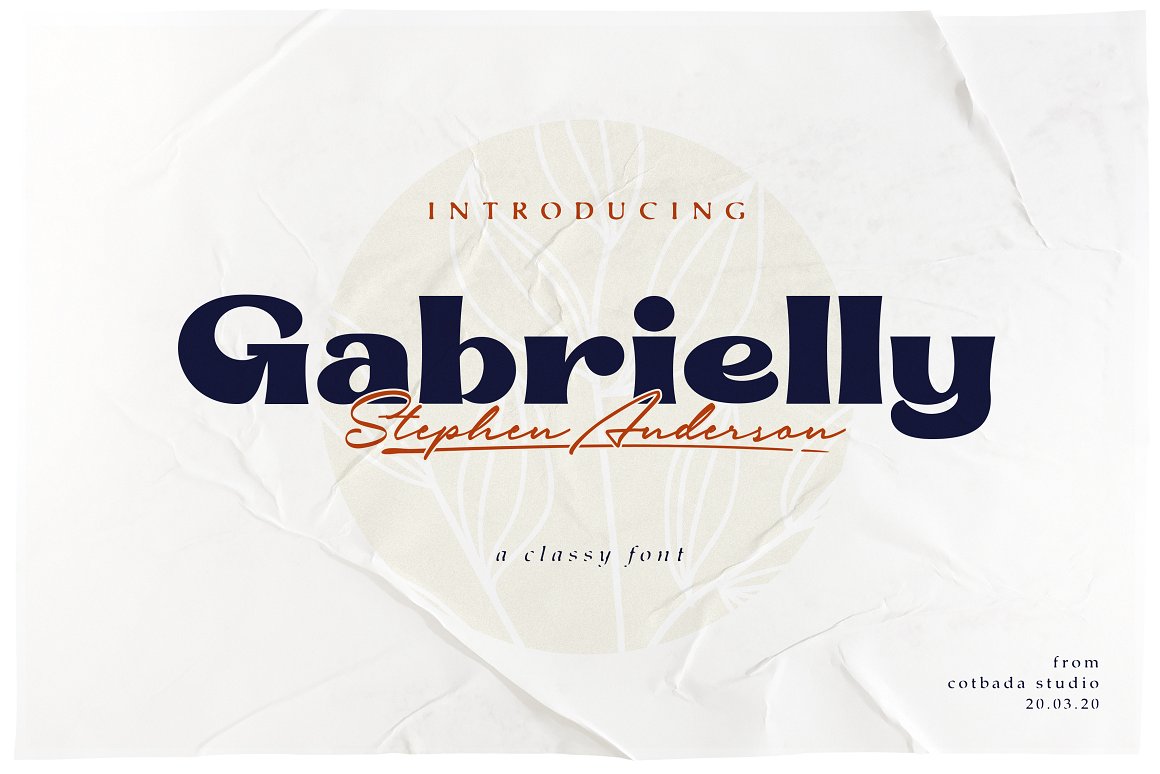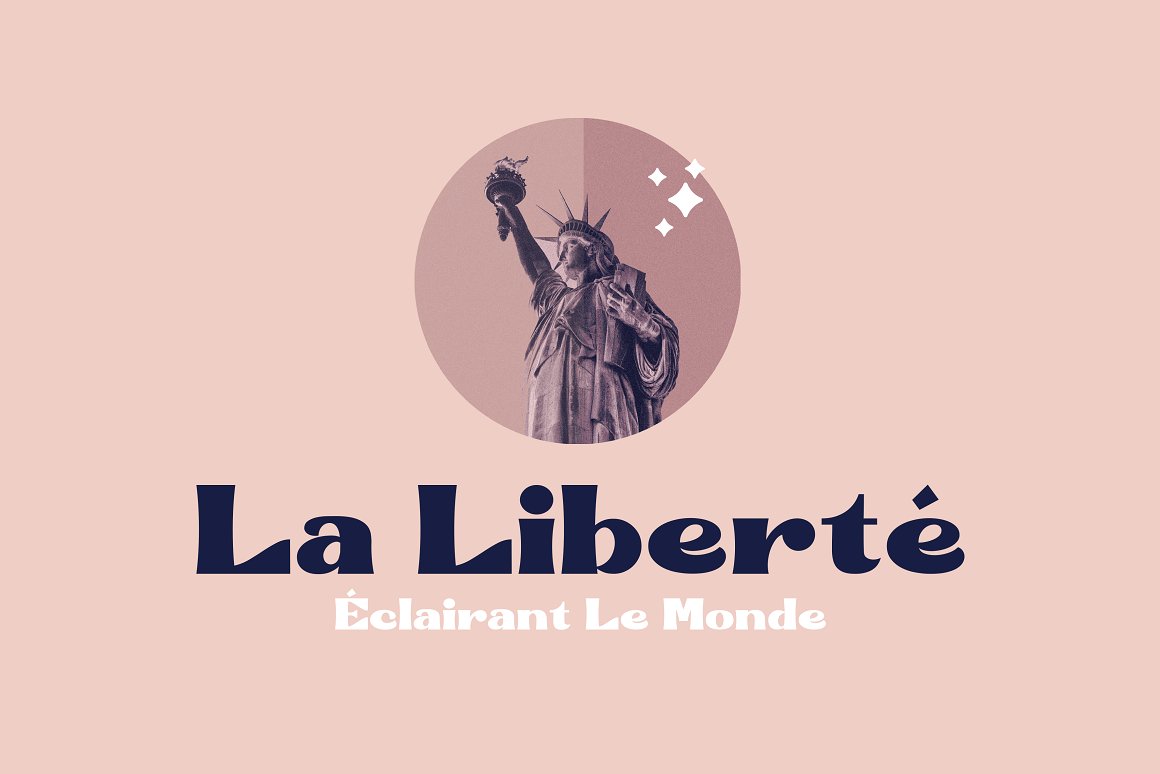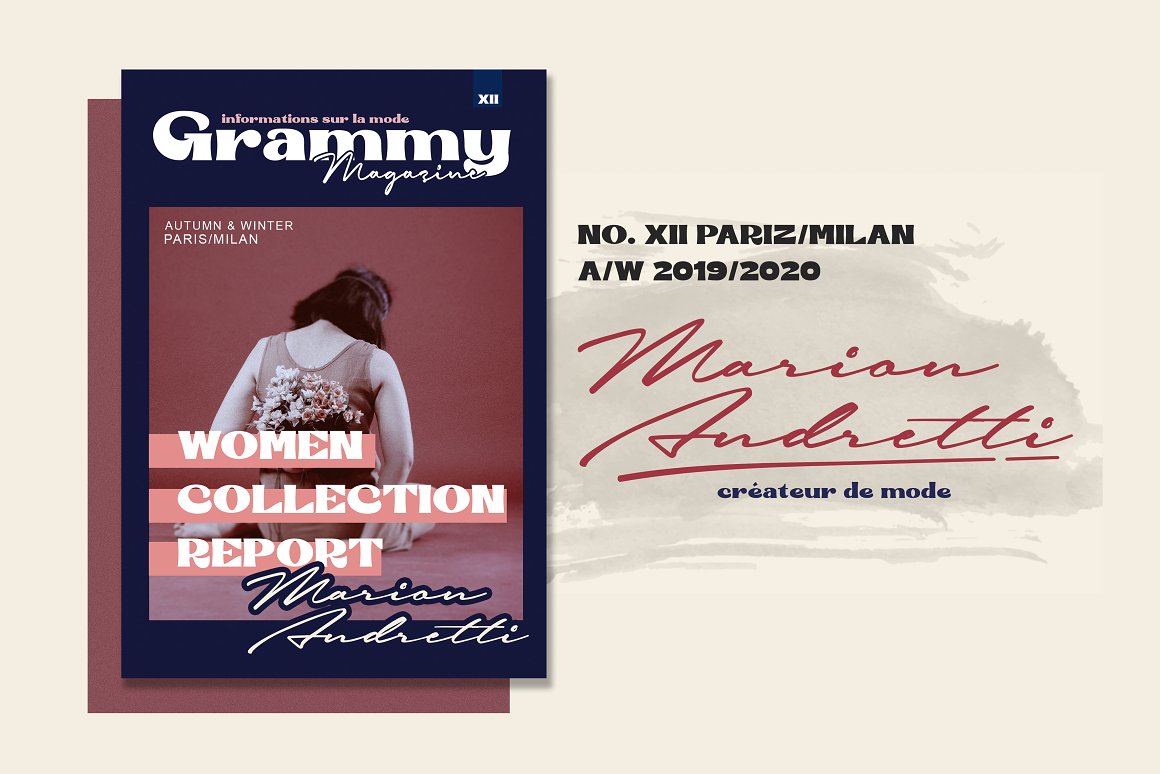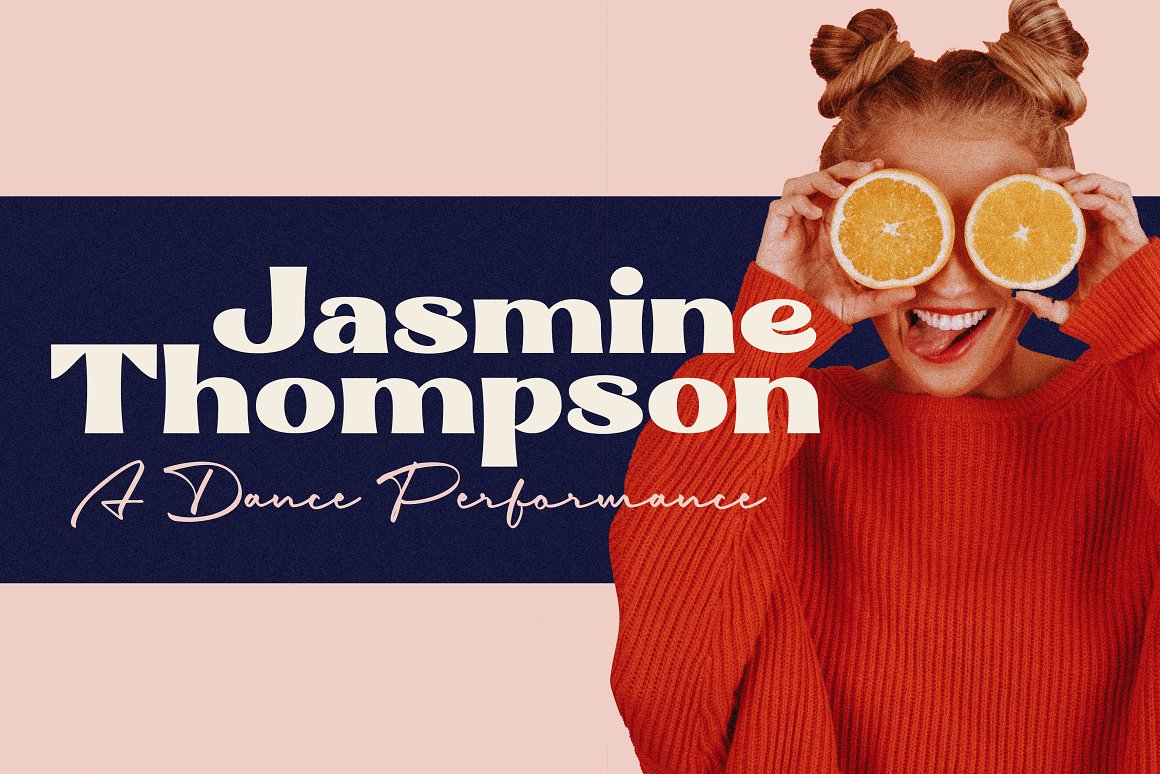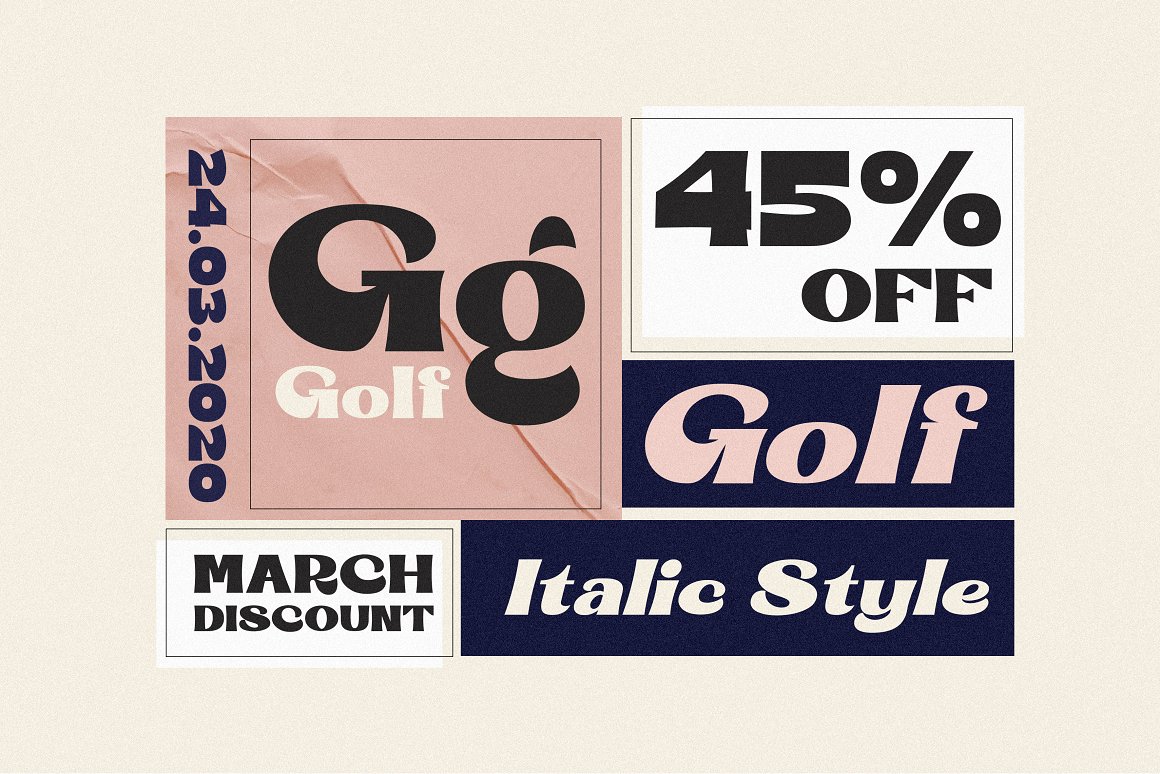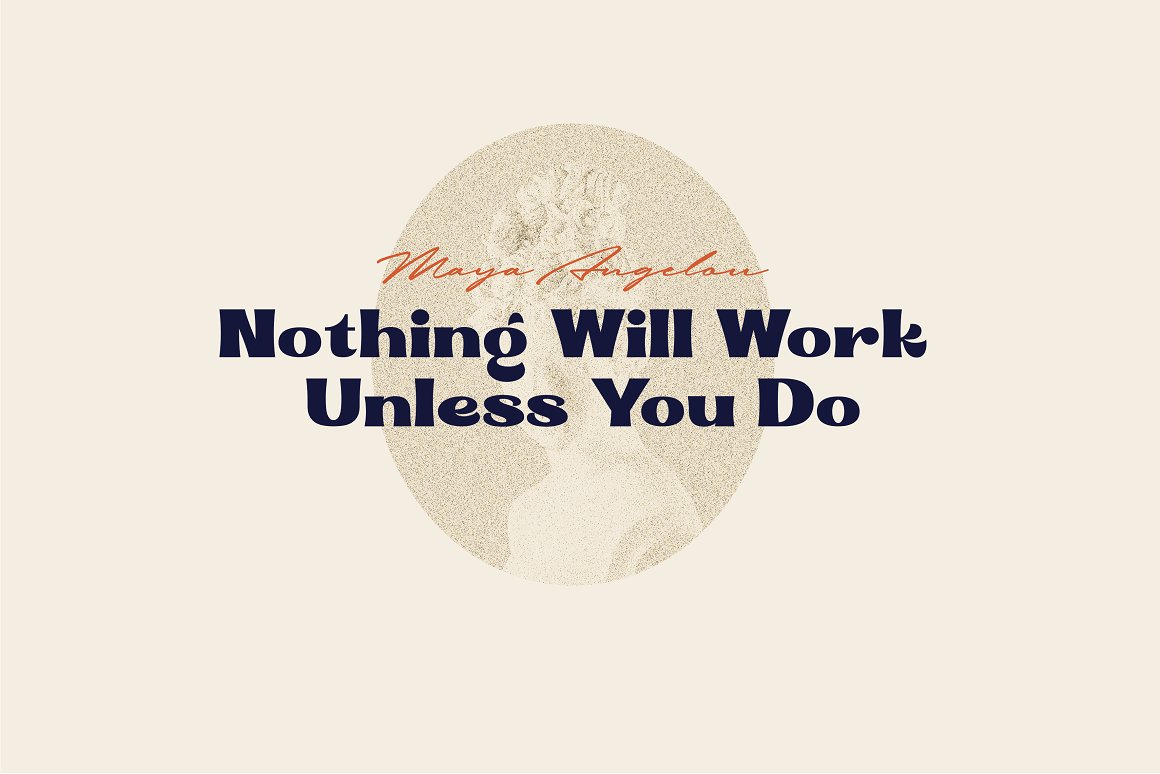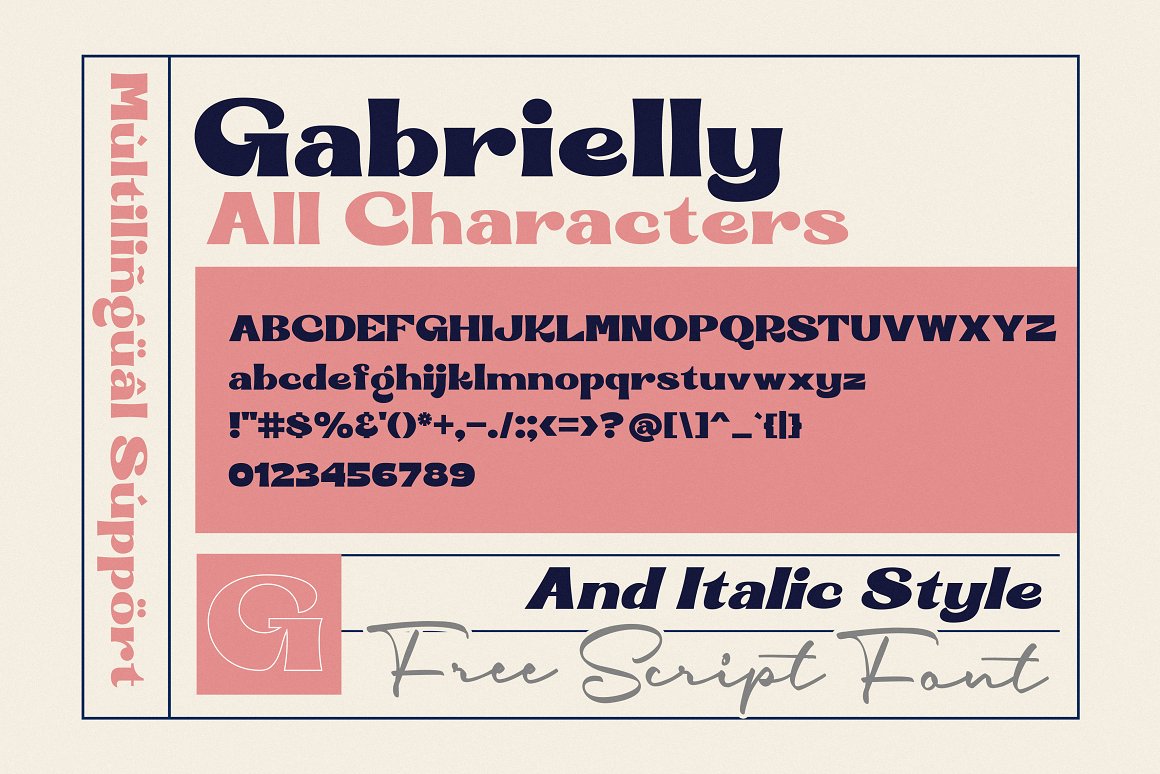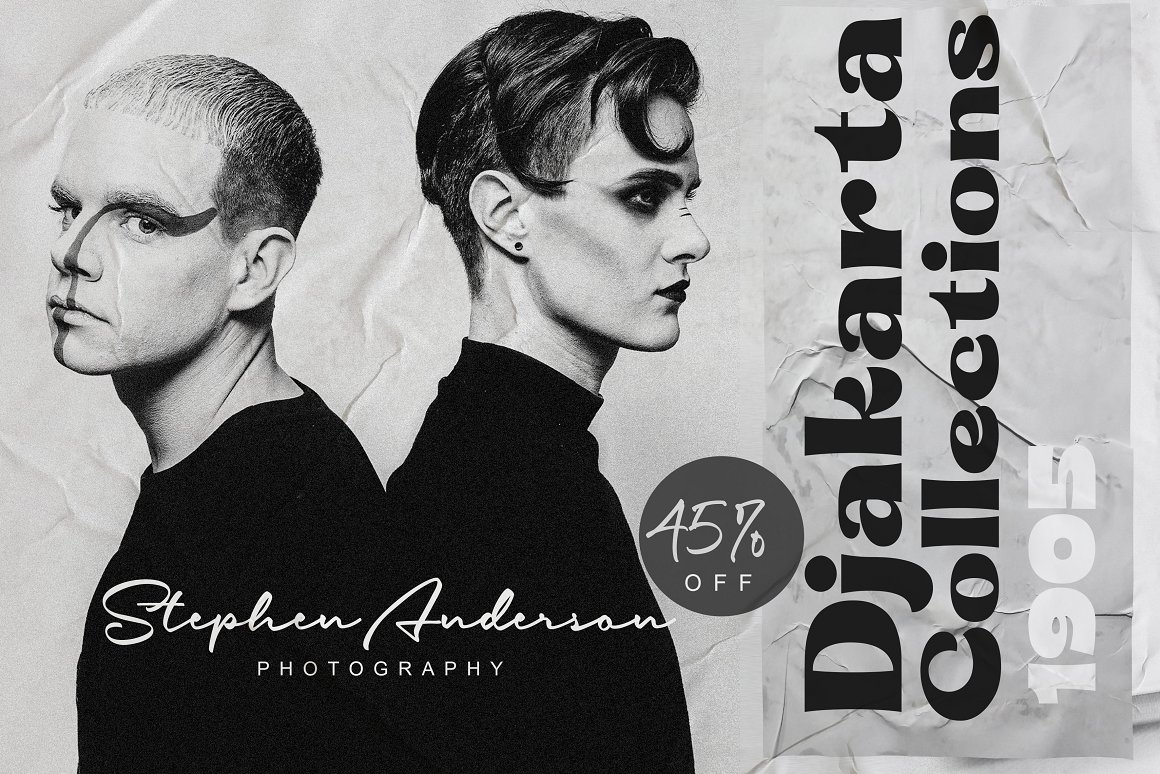
A bold and strong looking display font that is not only heavily inspired by the vintage/classic letterforms, Mouse-crafted with a high attention to details, clean lines, sharp edges and tempting curves.
Gabrielly works best for titles, headlines, logos, packaging, labels, and much more.